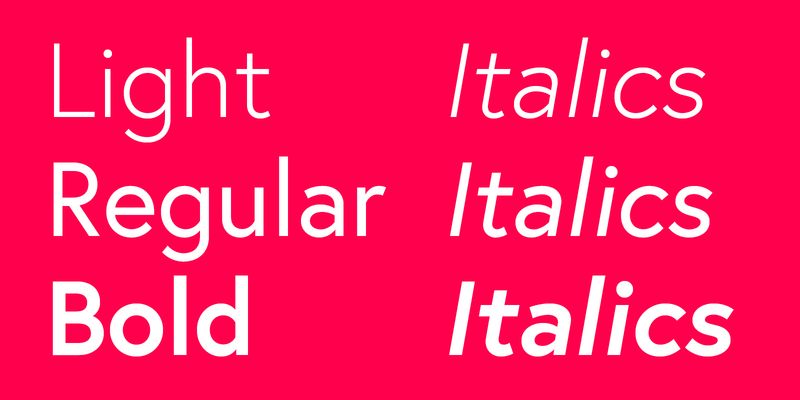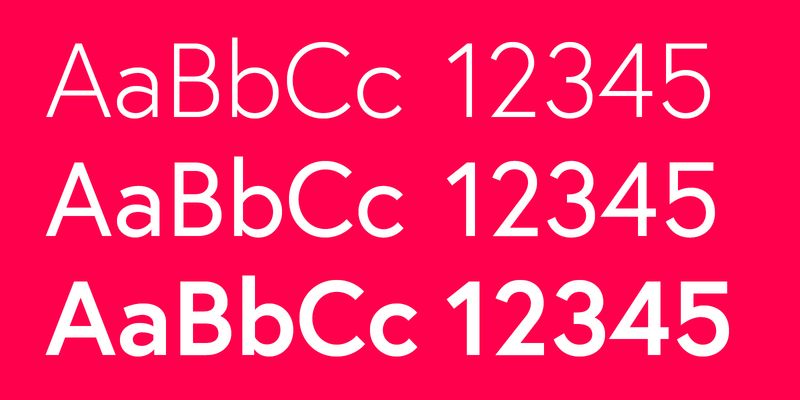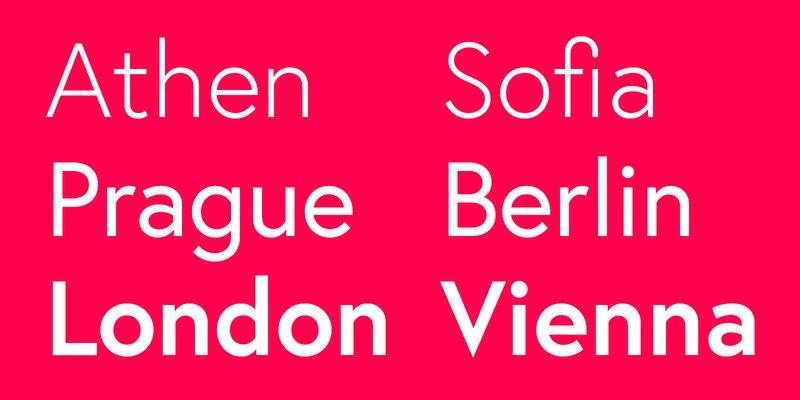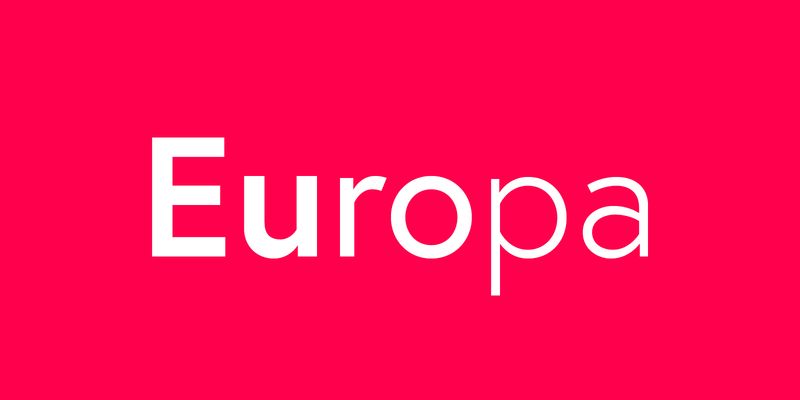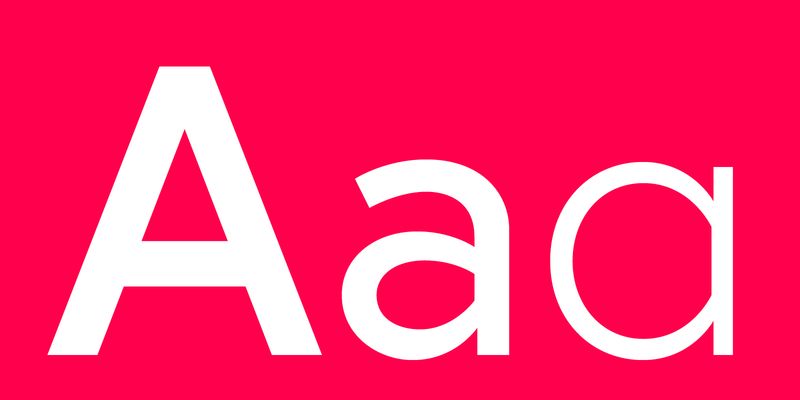
Europa is a modern sans serif combining geometric reduction and humanistic vitality. Despite the distinct geometrical touch and characterful roughness, it can be used for both text and headline purposes, due to optical modulation rather than metrical construction. Its name refers to the inspirational origins, two popular European typefaces: the geometrical Futura and the humanistic Gill Sans.